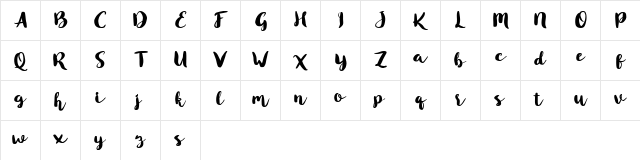
Blusty Script Free Regular
Design Context for Blusty Script Free Typeface
Blusty Script Free flows with the natural rhythm of handwritten lettering, making it ideal for designs that call for warmth and personal expression.
Font Pairing: Combine Blusty Script Free with a simple geometric sans for maximum contrast — the tension between flowing curves and clean structure is a classic typographic pairing.
Pro Tip: Use Blusty Script Free for short runs of text — names, titles, or taglines. Extended body copy in script faces tires the eye quickly.